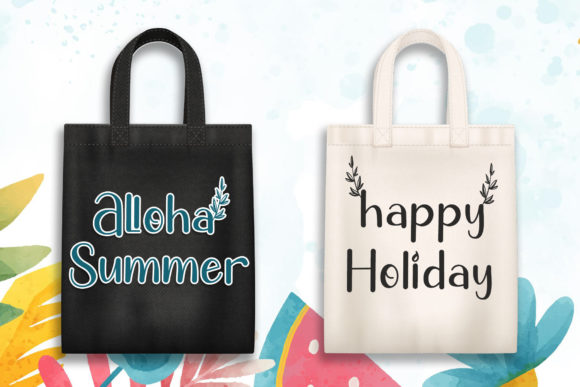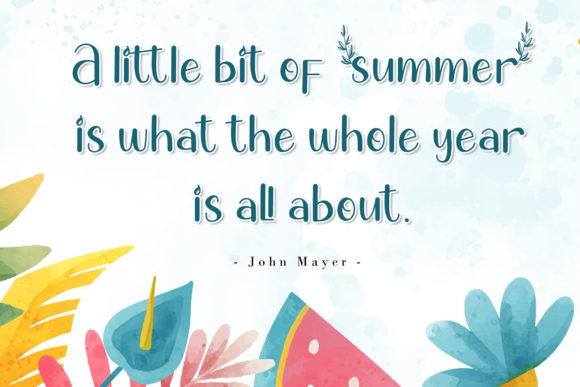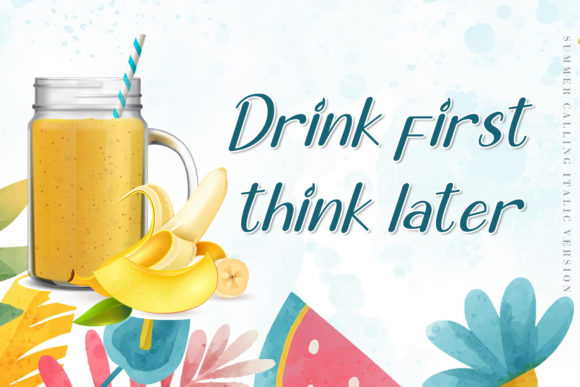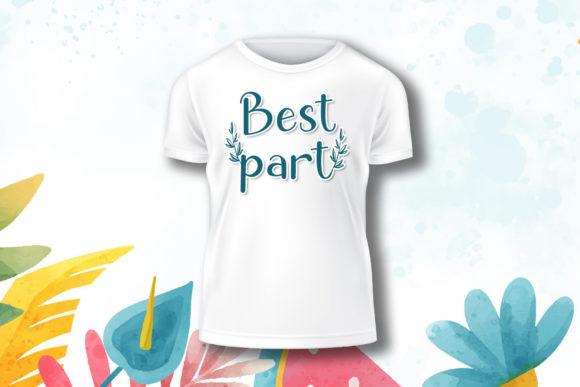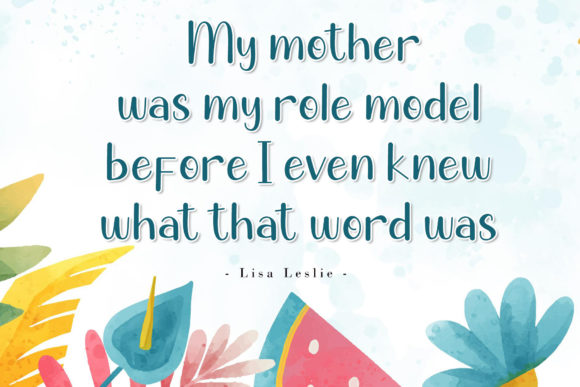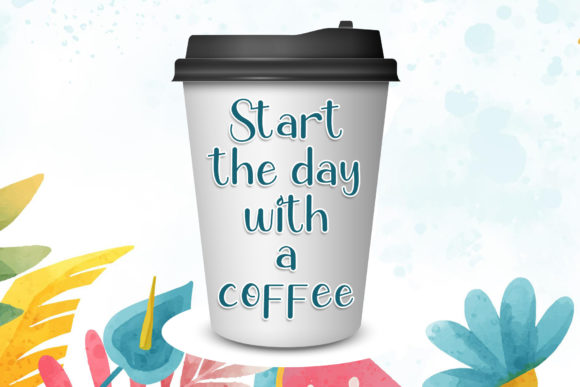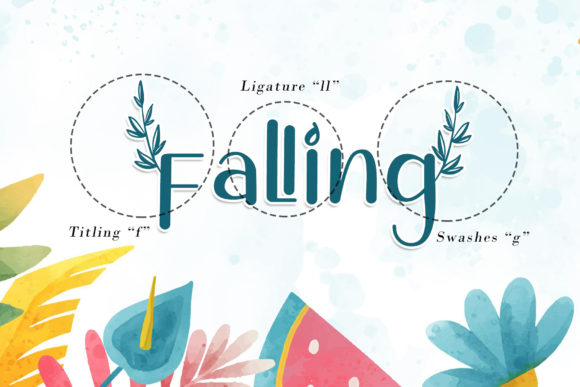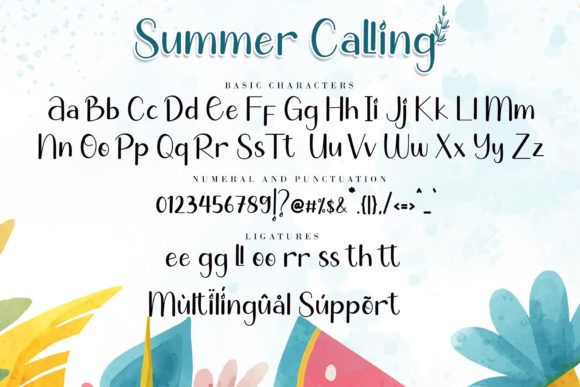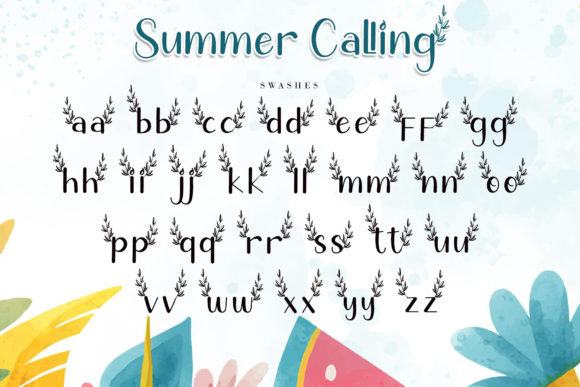
Summer Calling Font
About Summer Calling Font
Summer Calling is a delicate, elegant and flowing handwritten font. It has beautiful and well balanced characters and as a result, it matches a wide pool of designs. Summer Calling is PUA encoded which means you can access all of the glyphs and swashes with ease!